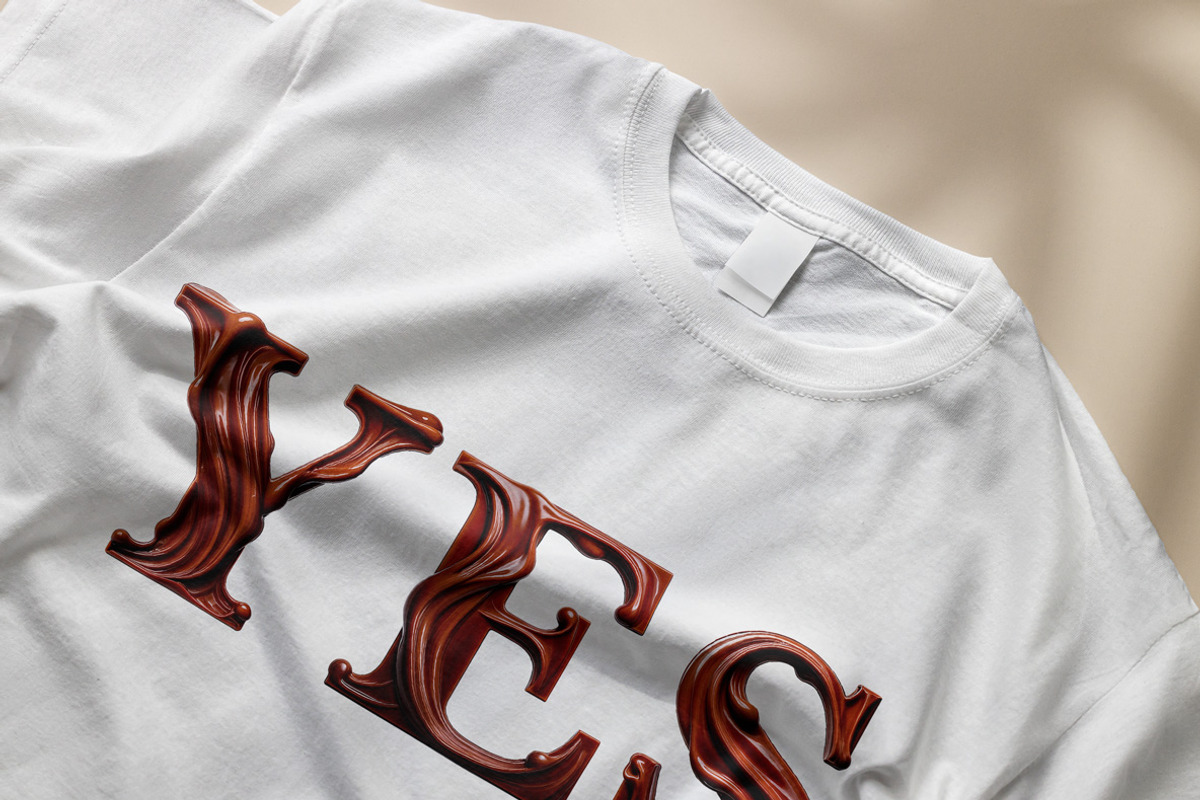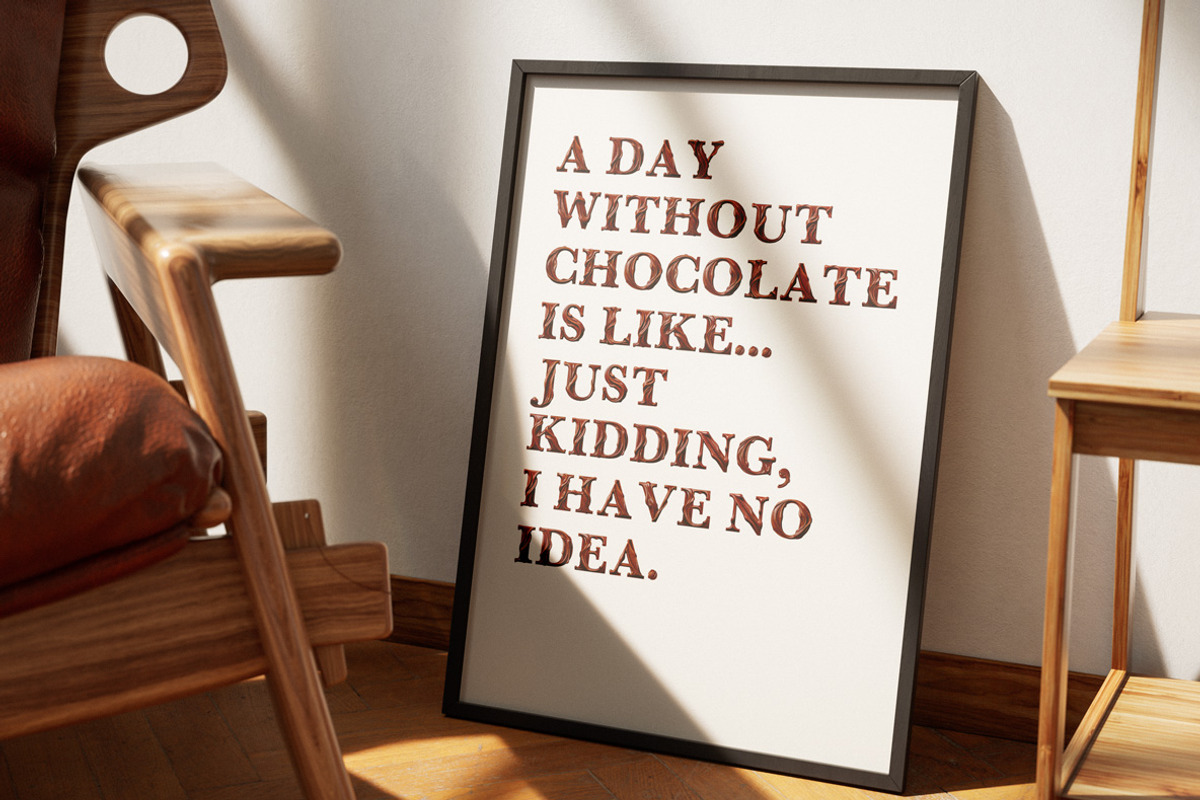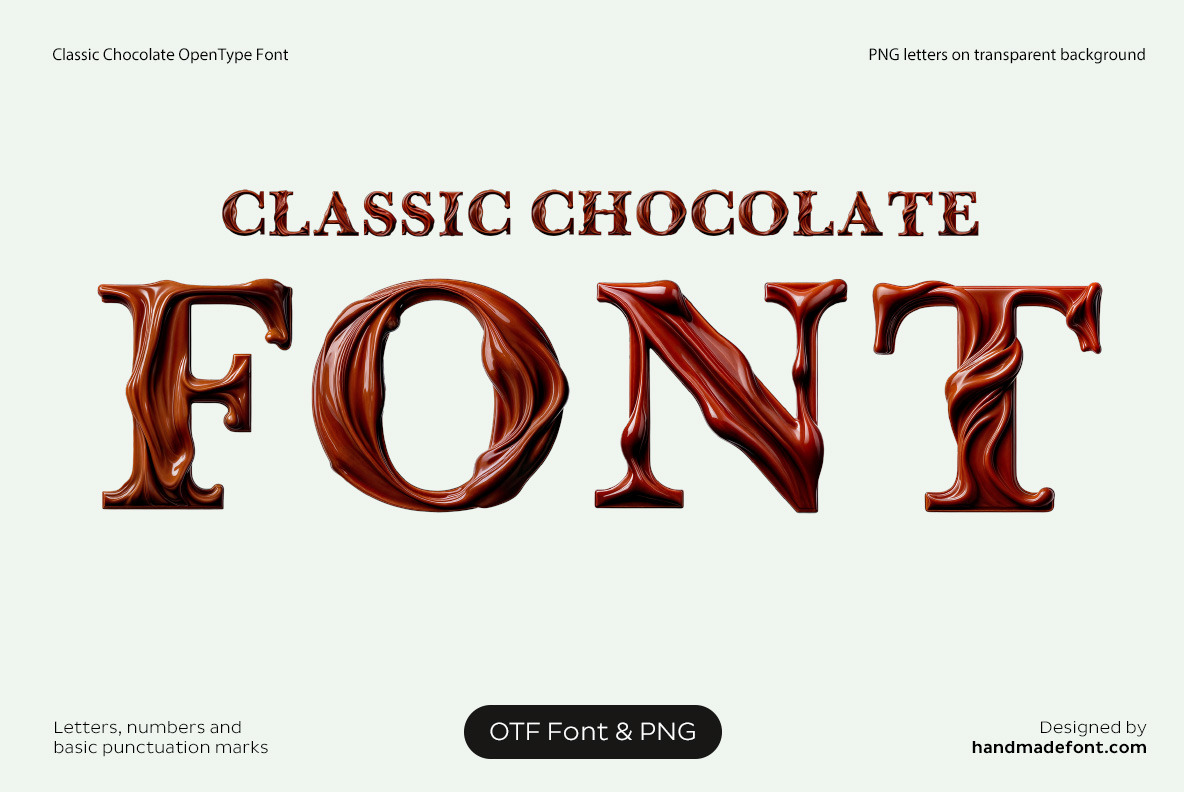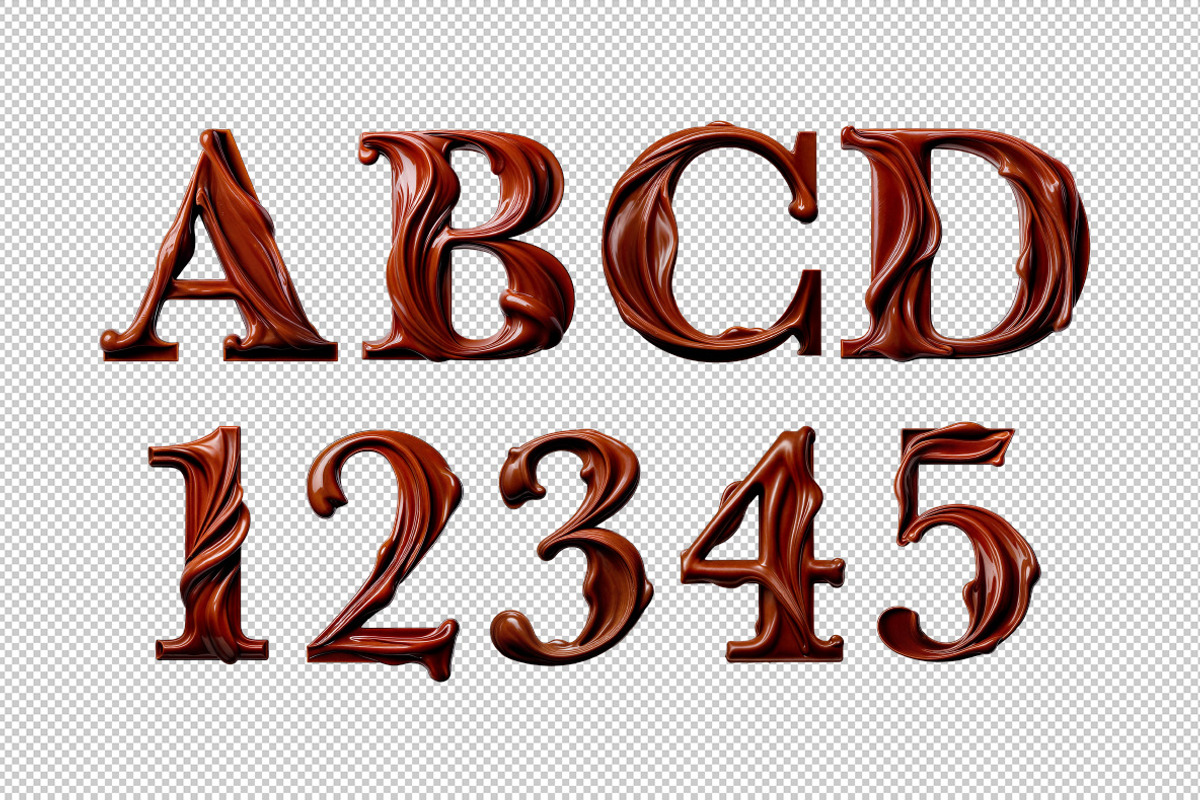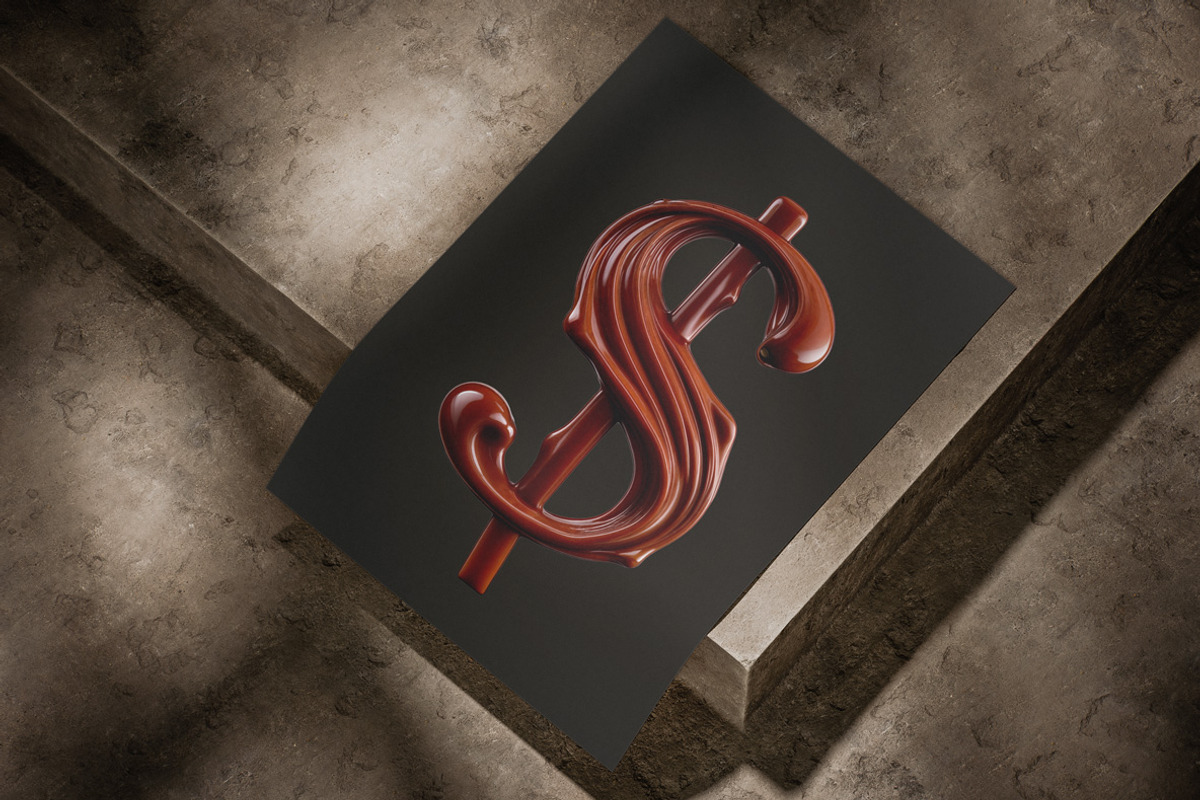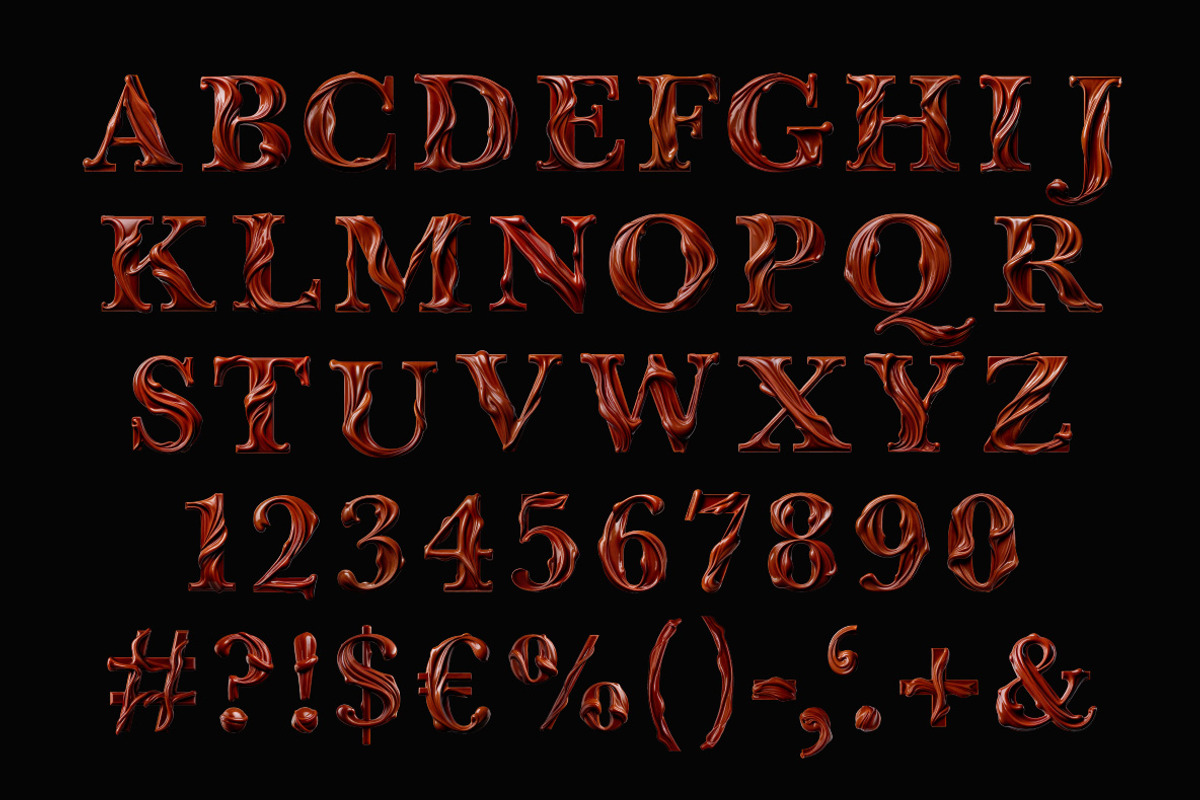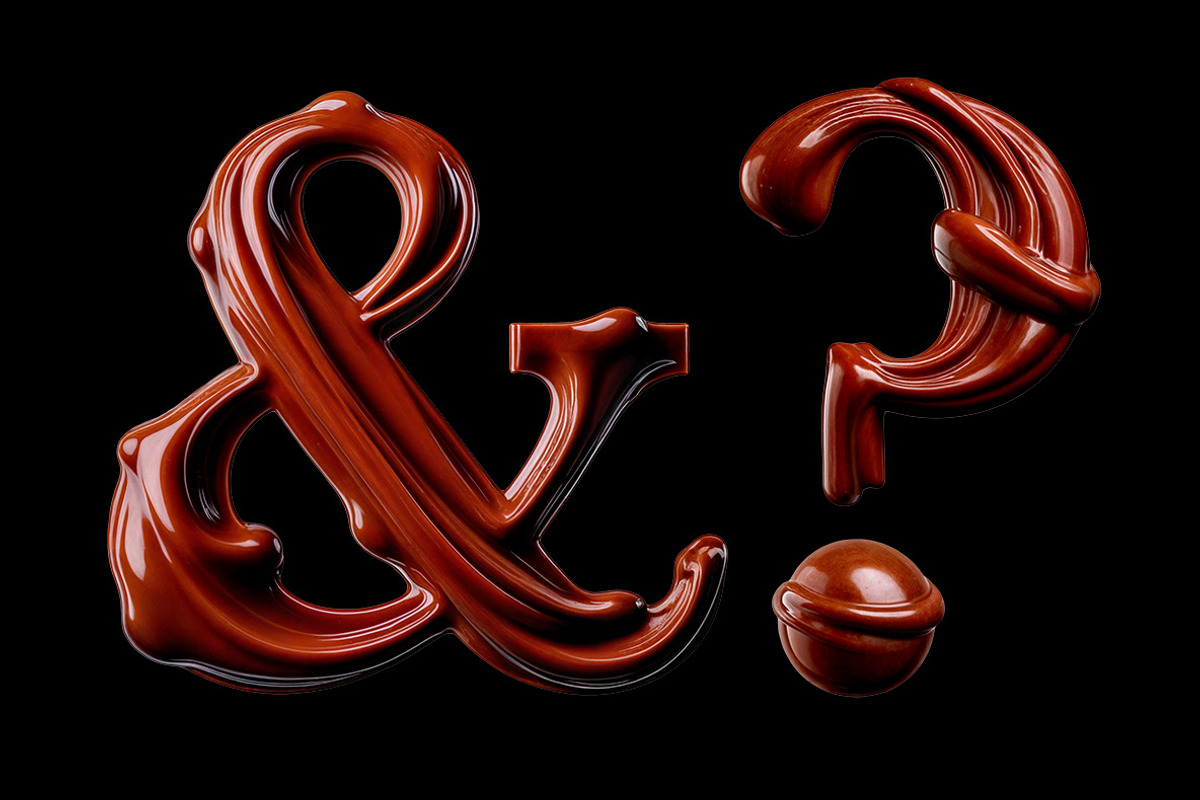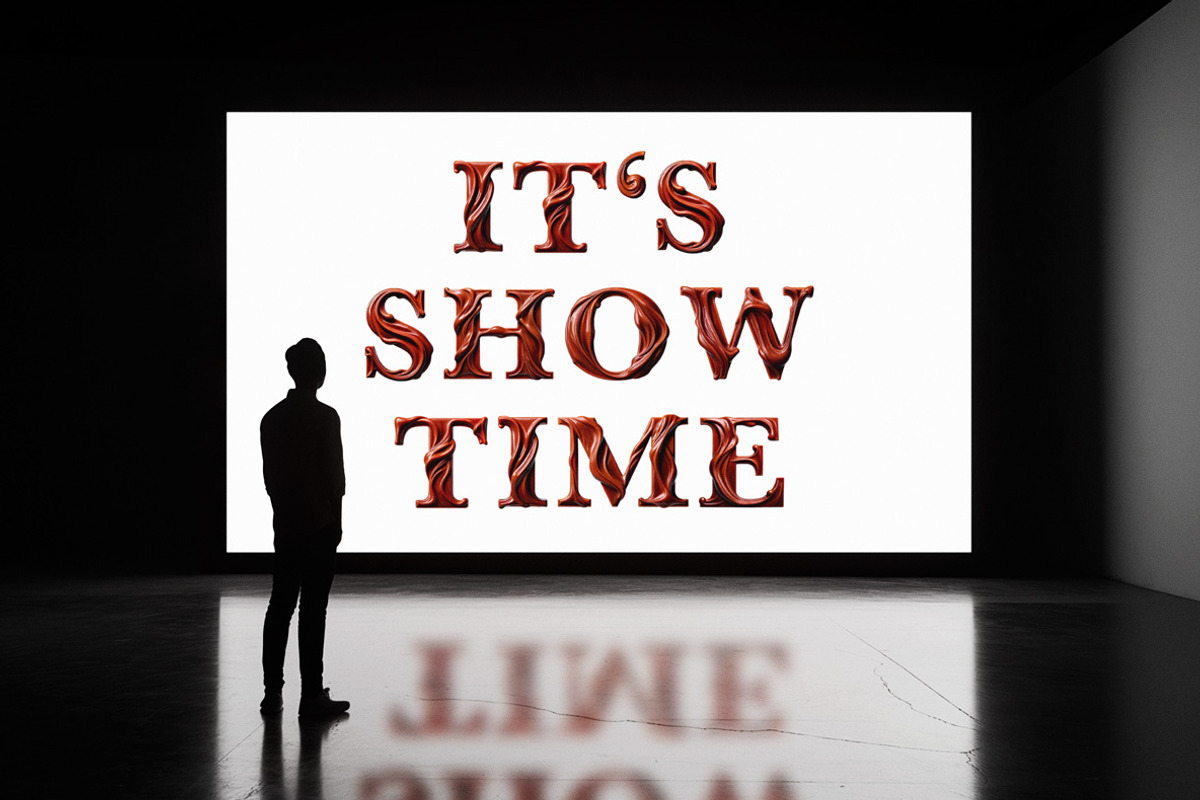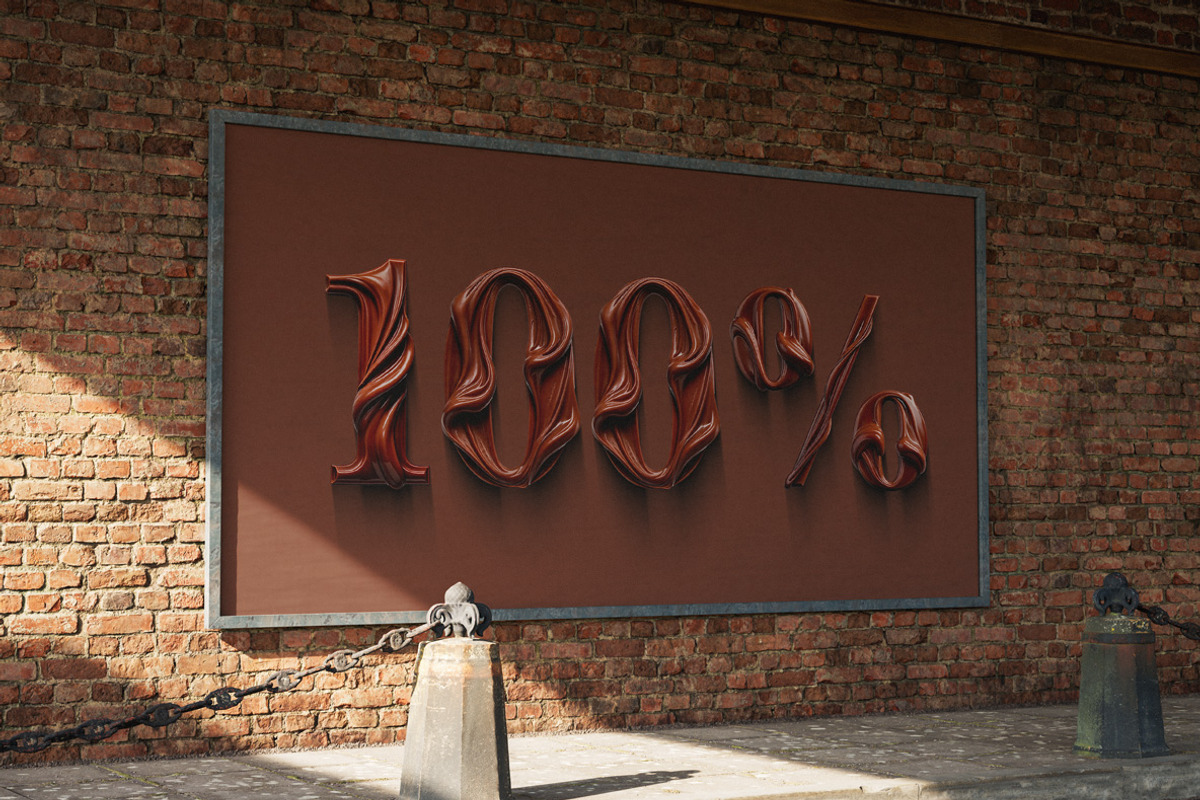
Classic Chocolate Font
Brown and irresistibly indulgent, the Classic Chocolate Font captures the essence of rich, creamy chocolate in every letter. This chocolate-inspired font features smooth, glossy chocolate lettering, with each character crafted to resemble melted chocolate flowing luxuriously. Intricate chocolate droplets artistically splatter around the letters, adding a playful yet elegant touch to the design. The glossy texture and creamy finish create a visually stunning and appetizing typography style, perfect for conveying a sense of decadence and sophistication. Whether used for chocolate-themed branding, packaging, or artistic projects, the Classic Chocolate Font delivers a timeless appeal that’s both elegant and mouthwatering. This chocolate alphabet is a sweet blend of creativity and confection, making it a true treat for the eyes.